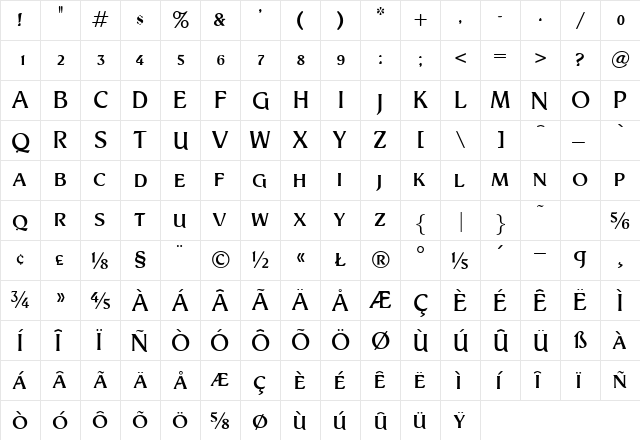
Theodora Regular
Design Context for Theodora Typeface
Theodora offers clean, dependable letterforms without strong stylistic allegiance, making it a practical choice for designers who need flexibility.